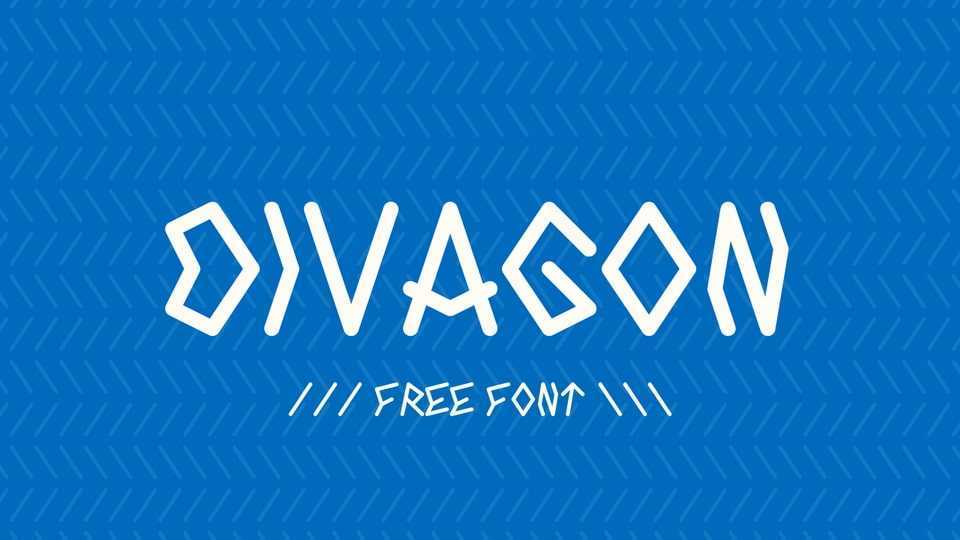
Download Divagon font, a decorative Greek-style hand lettered typeface based on a geometric grid. Divagon font works best for display size, is perfect for use in logos, magazines, posters, packaging and headlines.